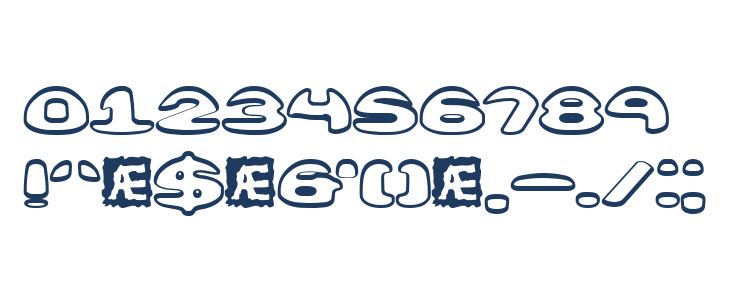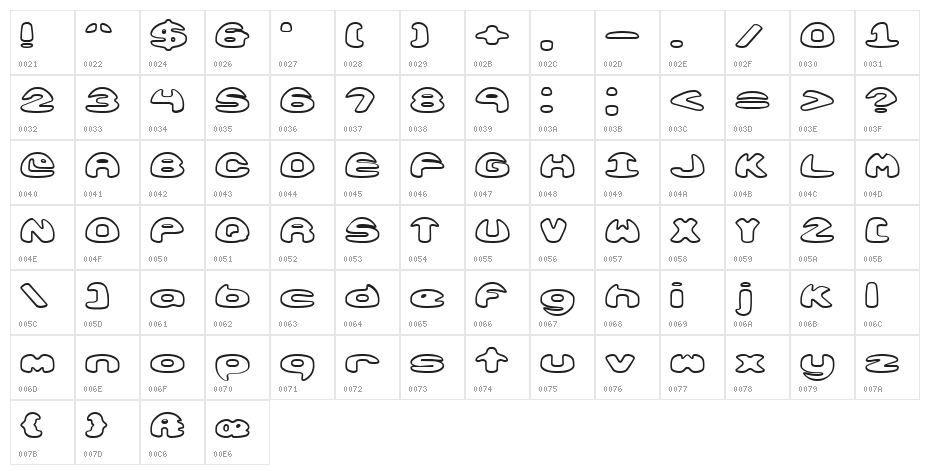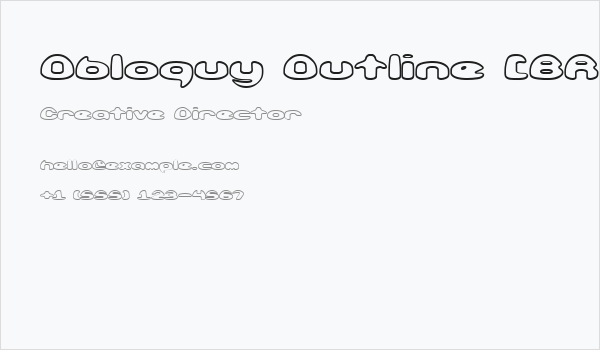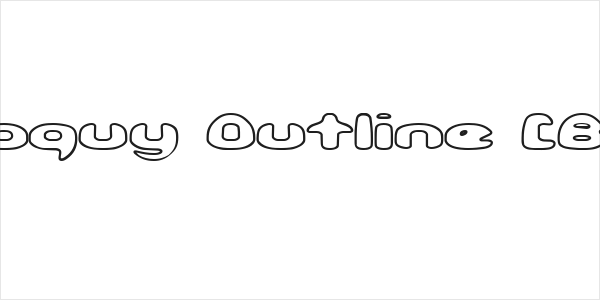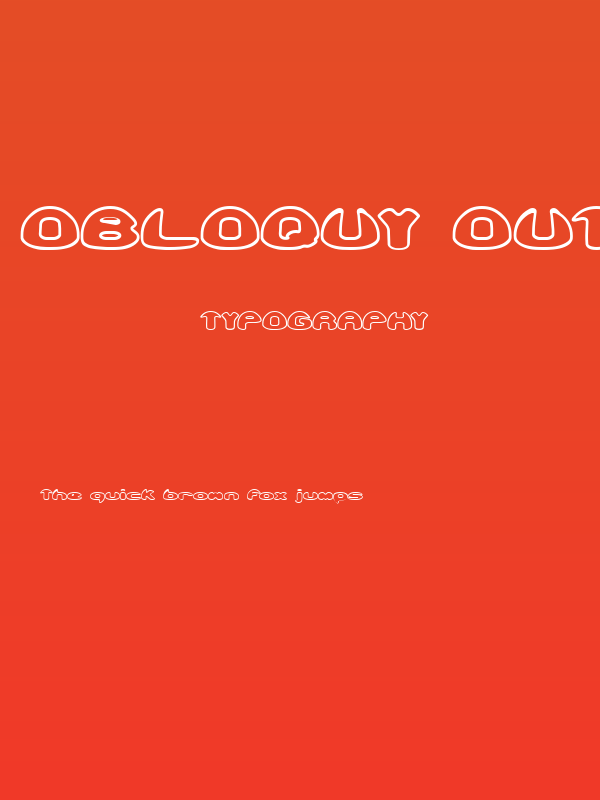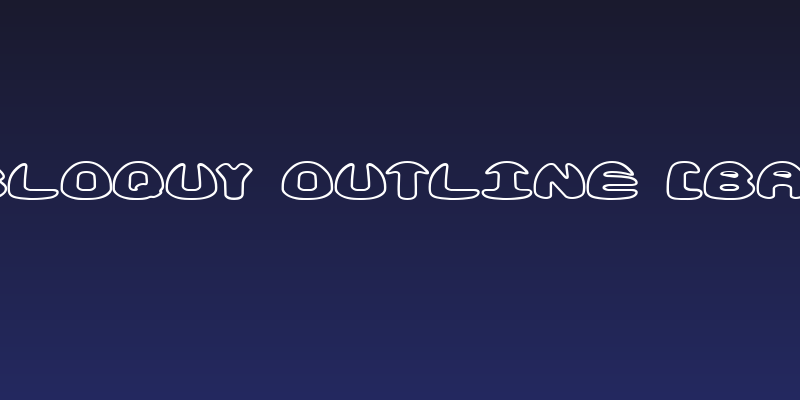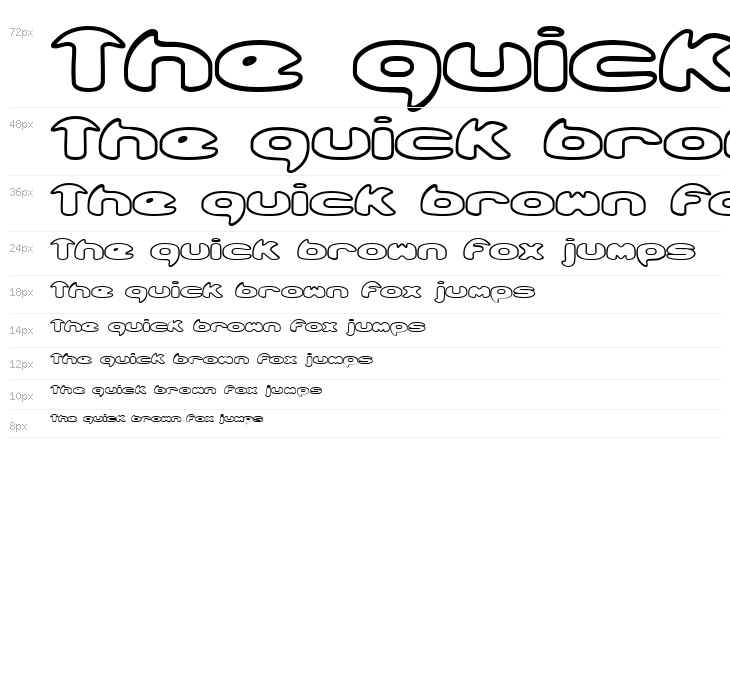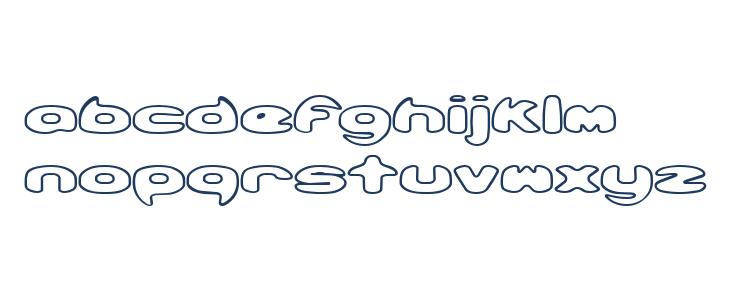
Obloquy Outline [BRK] Font
Obloquy Outline [BRK] Description
This font features a playful and bold outline style, characterized by its thick, rounded edges and hollow interiors. The letters are evenly spaced, with a consistent stroke width that gives it a cohesive look. The uppercase and lowercase letters maintain a uniform height, contributing to its balanced appearance. The numbers and special characters follow the same design principles, ensuring a harmonious overall aesthetic. This font's unique outline design makes it stand out, adding a touch of creativity and fun to any project.
| Overall Style | Playful, Creative |
| Proposed Projects | Ideal for children's books, playful branding, posters, and creative digital content. |